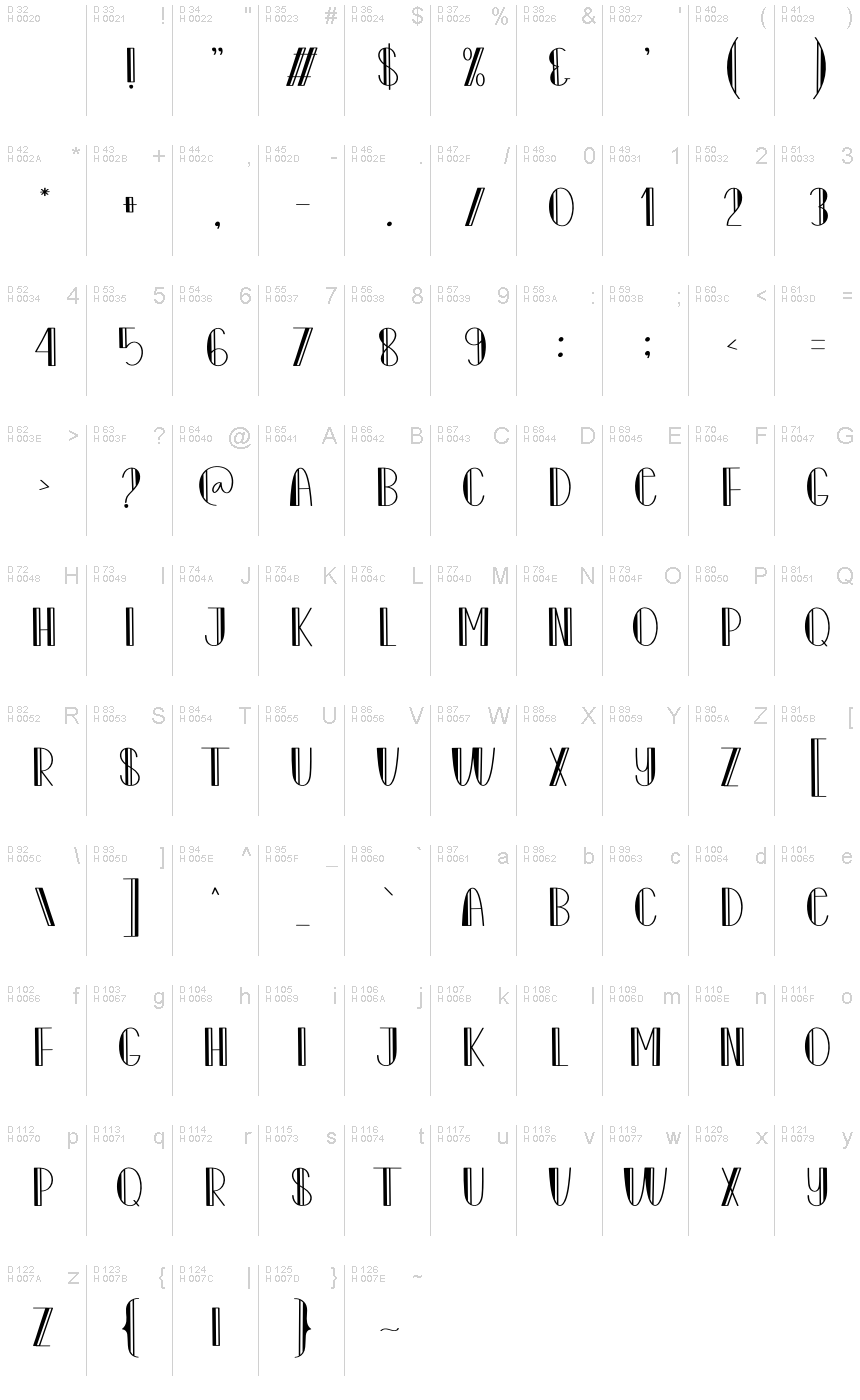
Simple Outside
Simple Outside font from the Scratchones family radiates a unique retro charm, effortlessly blending nostalgia with modern design sensibilities. With its strikingly condensed form, this font commands attention, drawing the eye with its bold outlines and playful curves. Each character conveys a sense of whimsy while maintaining clarity, making it ideal for impactful headlines and vibrant branding.
The aesthetic appeal lies in its ability to evoke fond memories of vintage signage while remaining versatile enough for various design contexts. Perfect for everything from event posters to trendy merchandise and lively digital layouts, Simple Outside enhances each project with personality and flair. Its distinct style ensures that designs stand out in an engaging way, embodying both creativity and friendliness.